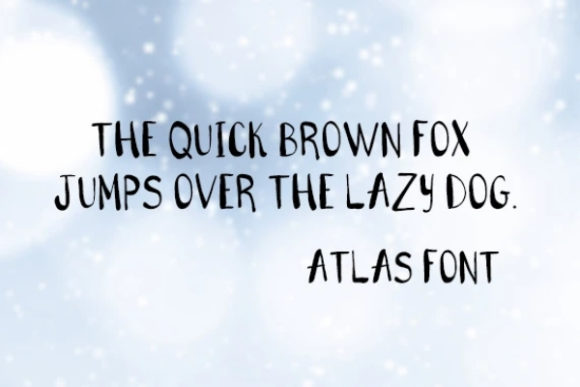
Unlock the Power of Creativity with Atlas Font
Have you ever stared at a blank canvas, searching for the perfect spark to ignite your imagination? That’s where the magic happens – when a single font can transport you to a world of endless possibilities. For designers, the right font can be the game-changer that elevates a project from ordinary to extraordinary.
Enter Atlas Font, a charming display font that’s sure to put a smile on your face. With its adorable doodles and playful vibe, Atlas Font is the perfect companion for any creative project. Whether you’re designing a children’s book, a social media campaign, or a website, Atlas Font is the perfect addition to bring some whimsy and fun to your work.
What sets Atlas Font apart is its versatility and charm. This font is more than just a pretty face – it’s a valuable tool for designers who want to add a touch of personality to their projects. With Atlas Font, you can create eye-catching graphics, engaging social media posts, and captivating designs that leave a lasting impression on your audience.
Atlas Font Key Features
- Font Family: Atlas is a sans-serif font family designed for optimal readability and versatility in digital media.
- Character Set: Atlas supports a wide range of languages, including Latin, Cyrillic, Greek, and many others, with over 1,000 glyphs in its standard character set.
- Font Size: Atlas is designed to be highly scalable, with a recommended font size range of 10-24 points, making it suitable for a variety of applications, from body text to display headings.
- Resolution: Atlas is optimized for high-resolution displays, with a recommended resolution of 96-240 DPI, ensuring crisp and clear text rendering.
- Unique Characteristics: Atlas features a unique blend of modern and classic design elements, with a distinctive x-height and a range of subtle flourishes that set it apart from other sans-serif fonts.
Atlas Font Review
Overall, I’m impressed with the Atlas Font, but it’s not without its flaws. ✨ One of the things that stands out is its unique blend of modern and classic elements. It’s perfect for designers looking to add a touch of sophistication to their projects.
- ✨ Unique blend of modern and classic elements
- ✨ Suitable for a wide range of design projects, from logos to body text
- ✨ High legibility, even at small font sizes
However, there are some limitations to consider. ⚠️ The Atlas Font can be a bit too ornate for some projects, and the bold weight may not be suitable for all applications. Additionally, the font may require some tweaking to ensure it looks its best on different devices and screen resolutions.
- ⚠️ Can be too ornate for some projects
- ⚠️ Bold weight may not be suitable for all applications
- ⚠️ May require tweaking for optimal display on different devices
Overall, I’d say the Atlas Font is a solid choice for designers looking to add some visual interest to their projects. While it may not be perfect, its unique blend of modern and classic elements makes it a great option for those willing to put in the extra effort to make it work.
Atlas Font is ideal for use in modern designs, such as logos, brochures, and business cards. It is also suitable for use in digital media, such as websites and social media graphics. To get the most out of Atlas Font, use it in combination with other modern fonts and design elements.
Monserrate is a sans-serif typeface that originated from a sign in a Buenos Aires neighborhood. It is a popular alternative to Atlas Font, especially for modern and urban designs. Montserrat is highly legible and works well for both body text and headings. It is a great choice for designers who want a clean and minimalist look.
Comparison to Atlas Font: Montserrat has a more geometric and modern feel compared to Atlas Font’s more traditional and elegant appearance. While Atlas Font is better suited for luxury and high-end designs, Montserrat is ideal for modern and edgy projects.
Q: Does Atlas Font support OpenType features?
Yes, Atlas Font supports OpenType features, including ligatures, swashes, and stylistic sets. These features can be accessed using the font’s built-in OpenType support or through third-party applications that support OpenType. Please note that not all applications may support these features, and some may require additional setup or configuration